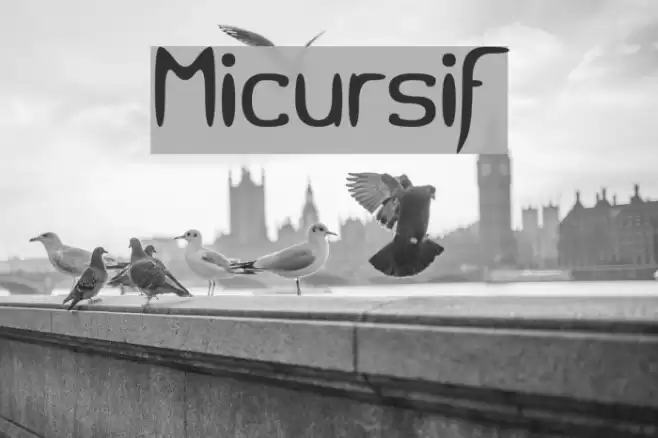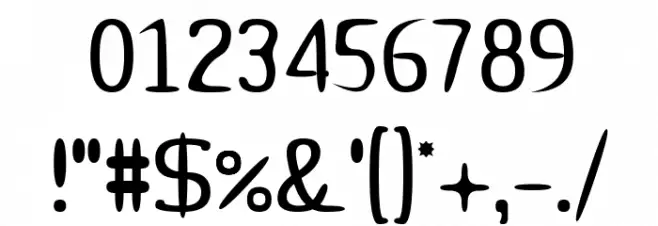
Micursif Font
Micursif Description
This font features a playful and whimsical design, characterized by its smooth, flowing curves and slightly irregular shapes. The letters have a hand-drawn feel, with varying stroke widths that add a dynamic and lively touch. The uppercase letters are bold and prominent, while the lowercase letters maintain a consistent style with a slightly more relaxed appearance. The numbers and special characters are crafted to match the overall aesthetic, ensuring a cohesive look across all elements. This font's unique style makes it stand out, offering a creative and artistic vibe.
A playful, hand-drawn font with smooth curves and dynamic strokes from Uncategorized fonts.
- Proposed Projects: Ideal for children's books, creative posters, playful branding, and artistic invitations.